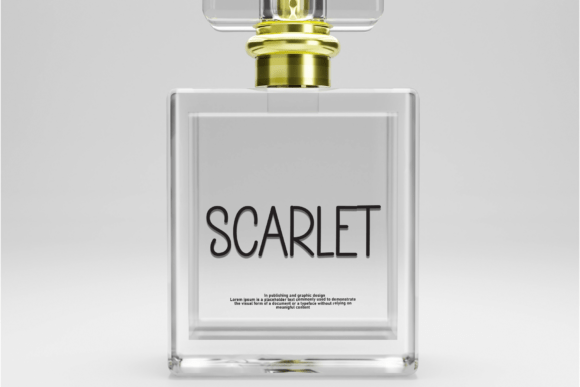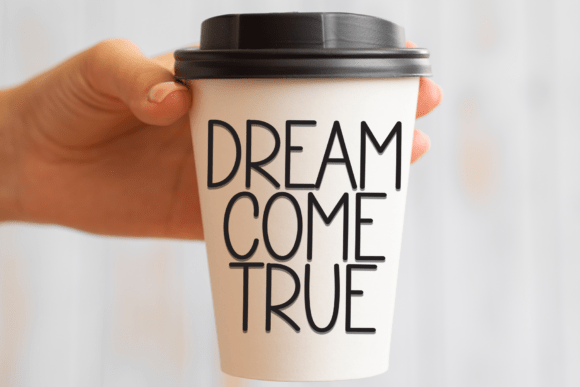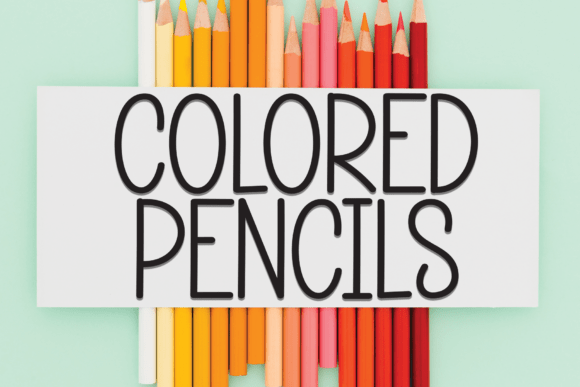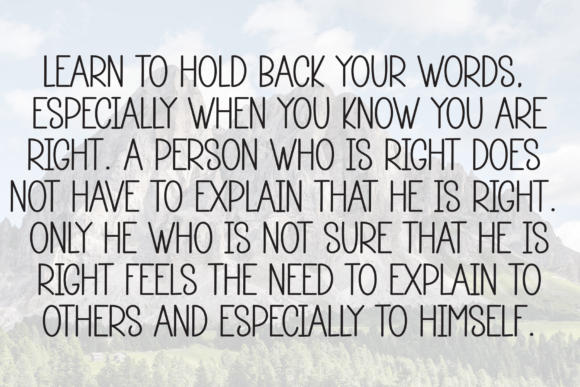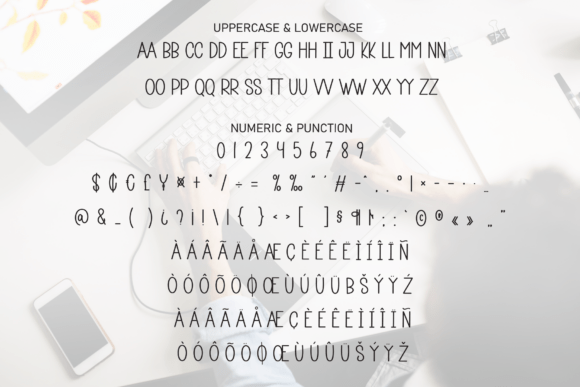
The Designer Font That Stole My Heart: A Sweet and Spontaneous Handwritten Display Font
I still remember the design project that led me to discover this charming font. I was working on a wedding invitation for a dear friend, and I was struggling to find the perfect font that would capture the playful and romantic vibe of the couple. That’s when I stumbled upon this delightful handwritten display font, and it instantly stole my heart. Its cheerful personality and sweet, spontaneous strokes infused joy into every aspect of the design, making it an instant favorite.
What I Love About This Font
- ✨ Sweet and spontaneous strokes that add a playful touch to any design
- ✅ Perfect for wedding invitations, cards, and other creative projects that require a charming and approachable aesthetic
- 🎉 Highly versatile and can be used for a wide range of designs, from digital to print
- 👍 Easily pairs with other fonts to create a unique and visually appealing combination
While this font is a gem, it’s not perfect. Here are a few quirks to keep in mind:
- 🤔 Limited use of uppercase letters can make it less suitable for designs that require a strong, bold statement
- ⚠️ Some characters may not be suitable for body text due to their playful and decorative nature
- Experiment with OpenType features, such as glyphs and stylistic alternates, to add more personality to your design
The Designer Inspiration Behind This Font
The designer behind this font is a creative genius who wanted to create a font that would capture the sweetness and spontaneity of handwritten letters. With a passion for typography and a love for all things whimsical, the designer poured their heart and soul into creating a font that’s both charming and approachable.
Q: What is the best way to use this font?
A: This font is perfect for designs that require a playful and charming aesthetic, such as wedding invitations, cards, and other creative projects.
Q: Can I use this font for body text?
A: While this font is beautiful, it’s not recommended for body text due to its playful and decorative nature. It’s best used for headlines, titles, and other design elements that require a touch of personality.